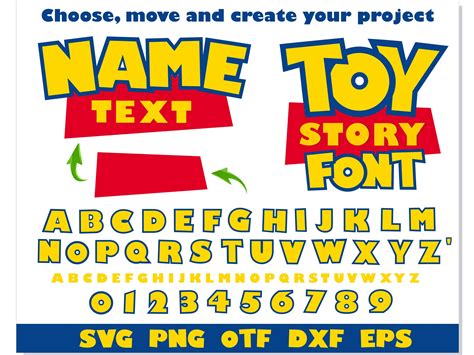
Discover the Perfect Toy Story Fonts to Add Magic to Your Projects!
Introducing Toy Story Fonts
Toy Story fonts are the perfect way to add a bit of magical charm to any project. Whether you're designing a party invitation, creating a logo, or simply adding a bit of pizzazz to your website, Toy Story fonts are the perfect way to do it. From the classic Pixar font to the classic Disney font, these fonts come in a variety of styles that will bring a bit of nostalgia to your projects.The Benefits of Using Toy Story Fonts
Toy Story fonts provide a unique, modern look that is perfect for any project. With a variety of different fonts to choose from, you can create a design that is truly your own. These fonts are also perfect for adding a bit of fun and whimsy to your projects. Whether you're creating a logo, website design, or party invitation, Toy Story fonts will help you create a unique and eye-catching design.Toy Story Fonts for Every Occasion
From classic Disney fonts to modern Pixar fonts, Toy Story fonts come in a variety of styles and sizes. Whether you're creating a logo, website design, or party invitation, there is sure to be a font that fits your project perfectly. With a variety of different styles to choose from, you can create a unique design that is sure to stand out.Creating a Toy Story Theme
Toy Story fonts are perfect for creating a fun and whimsical theme for your projects. Whether you're designing a logo, website, or party invitation, you can use these fonts to create a unique and eye-catching design. From classic Disney fonts to modern Pixar fonts, Toy Story fonts are perfect for creating a fun and magical theme.Finding the Perfect Toy Story Fonts
Finding the perfect Toy Story font can be a daunting task. With so many different options to choose from, it can be hard to decide which font is the best for your project. Luckily, there are plenty of resources available to help you find the perfect font for your project. From websites dedicated to helping you find the perfect font to blogs and forums, there are plenty of resources to help you find the font that is perfect for your project.Using Toy Story Fonts in Your Projects
Once you have found the perfect Toy Story font for your project, it's time to put it to use. Toy Story fonts can be used in a variety of different projects, from logos to websites to party invitations. With a bit of creativity, you can use these fonts to create a design that is truly your own.An Example of Toy Story Fonts in Use
For example, if you are creating a logo for a birthday party, you could use the classic Disney font to create a fun and whimsical design. You could also use the Pixar font to create a modern and eye-catching logo. With a bit of creativity, you can use Toy Story fonts to create a design that is truly unique.A Point of View on Toy Story Fonts
Toy Story fonts are a great way to add some nostalgia and fun to any project. Whether you're creating a logo, website, or party invitation, these fonts are perfect for adding a bit of magic to your project. With a variety of different fonts to choose from, you can create a design that is truly your own.Closing Message